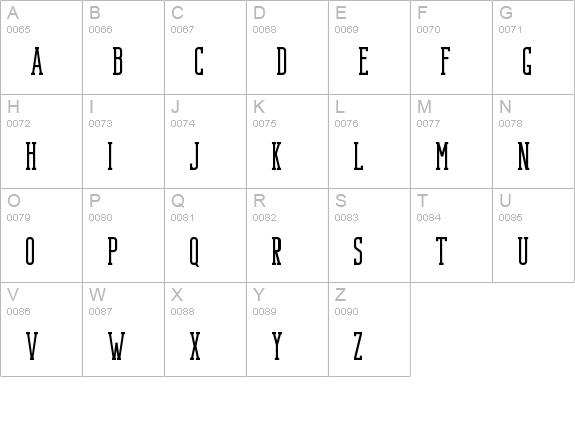
Bondie Slab is a demo font in the General > Slab-Serif category, designed by craftsupplyco. It has been downloaded 15 times and is available for Windows, Mac and Linux.
Bondie Slab is a versatile and modern typeface that combines sleek lines with a touch of elegance. With its bold and sturdy appearance, this font is perfect for creating eye-catching headlines, logos, and other design projects. The clean and sharp letterforms of Bondie Slab exude professionalism and sophistication, making it a popular choice for both print and digital media.